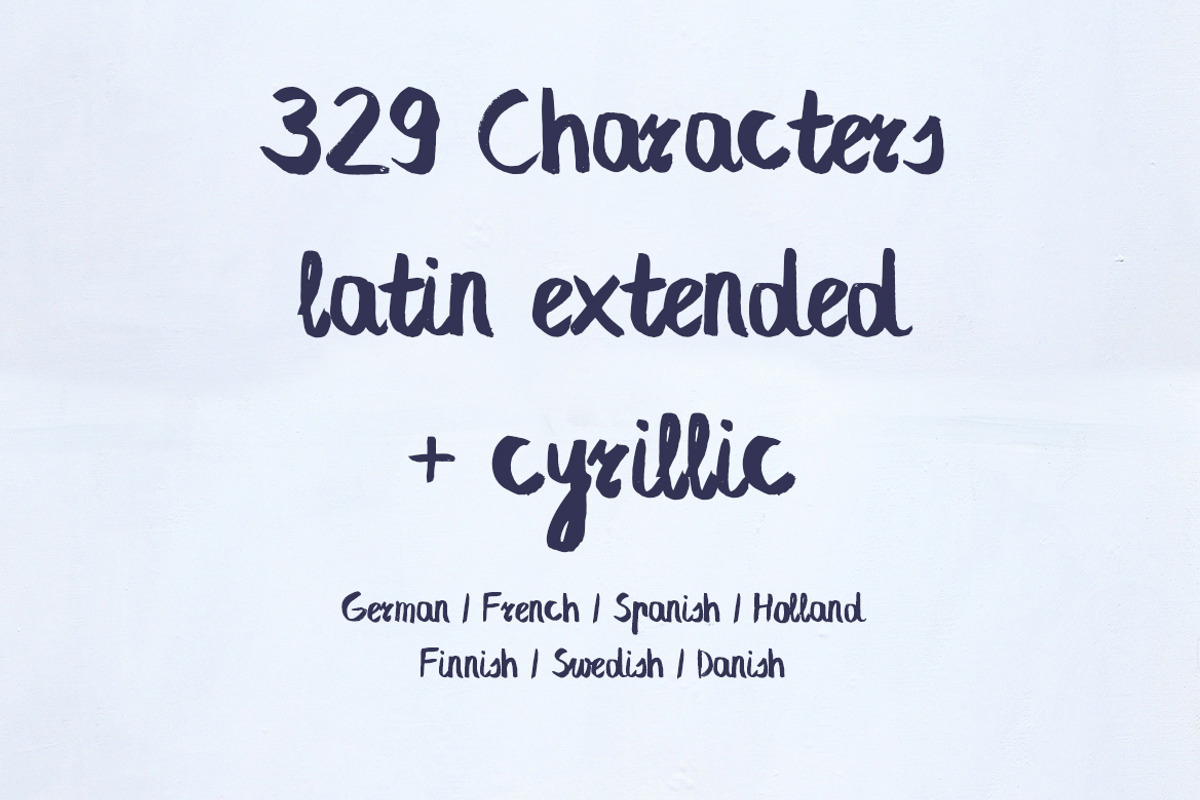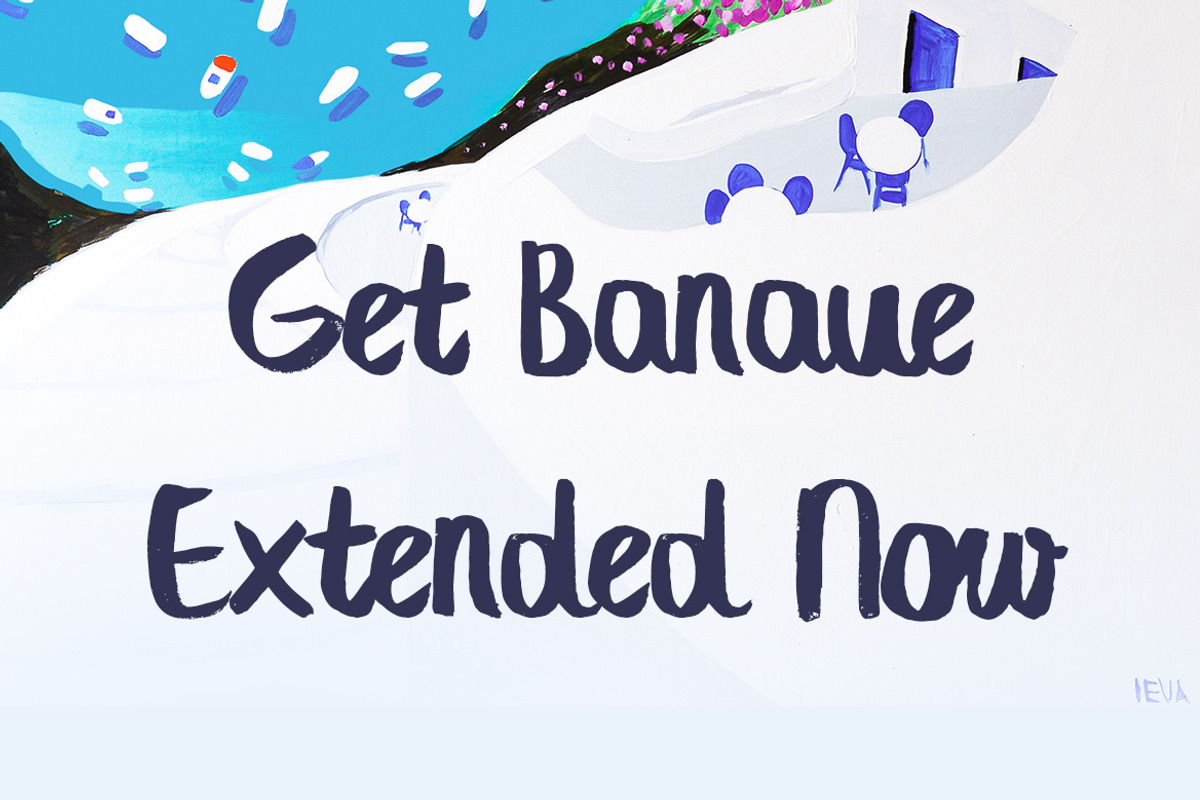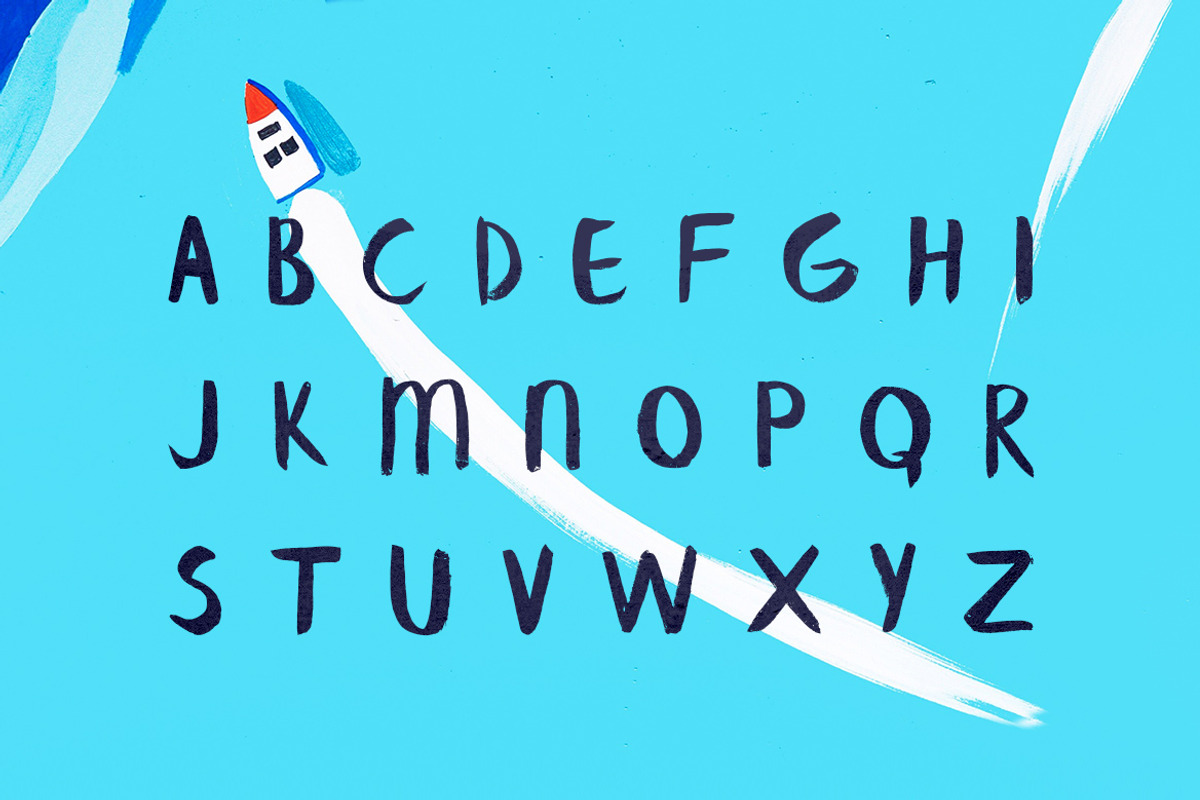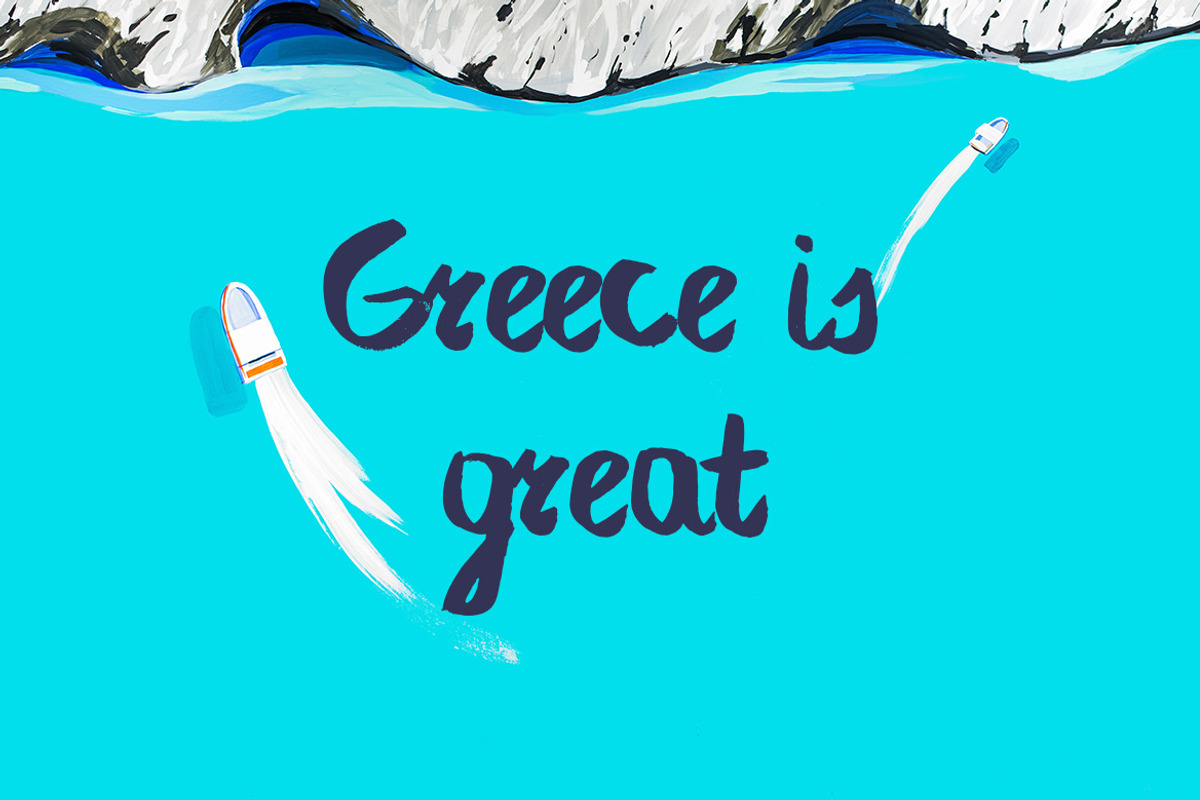
Banaue Extended Brush Font
Banaue Extended Brush Font by Wild Ones is a font selected for branding, posters, packaging, typography.
- It has been updated and now contains small letters , cyrillic letters and EU country based glyphs.
Why Banaue Extended Brush Font is worth a look
Banaue Extended Brush Font by Wild Ones fits naturally into Branding, posters, packaging, typography.